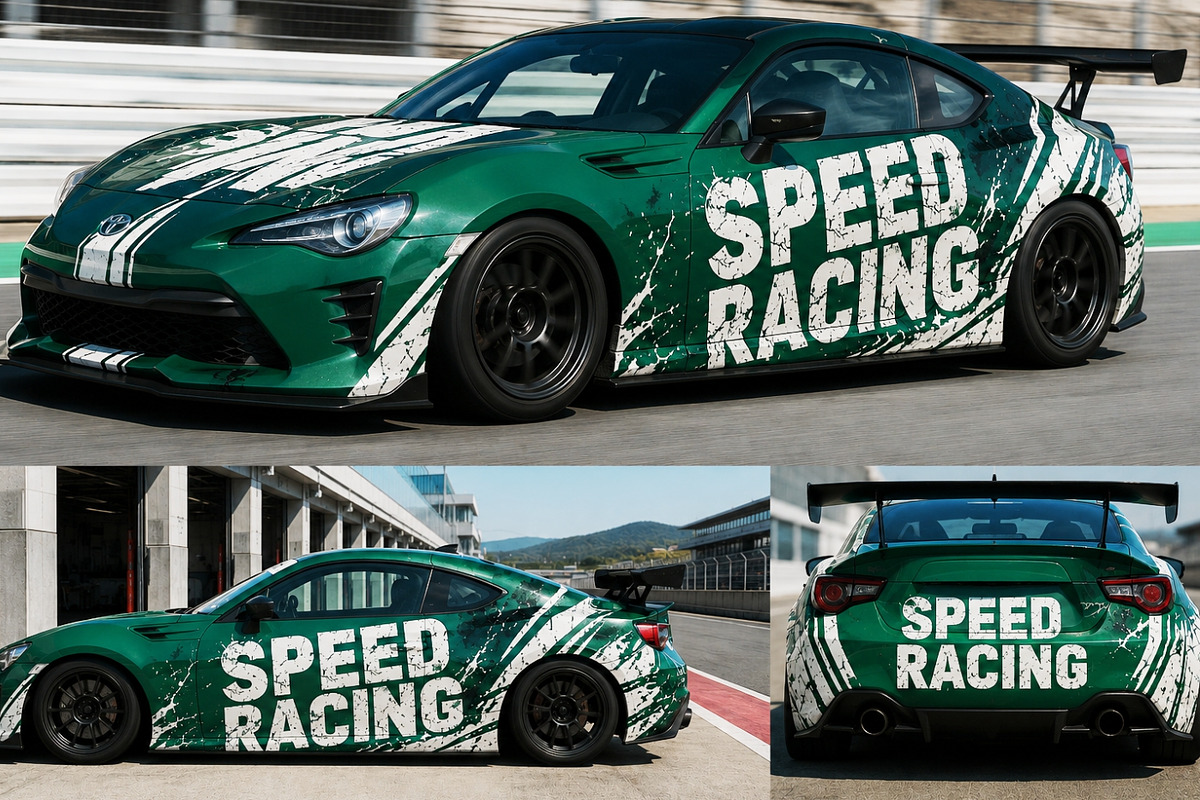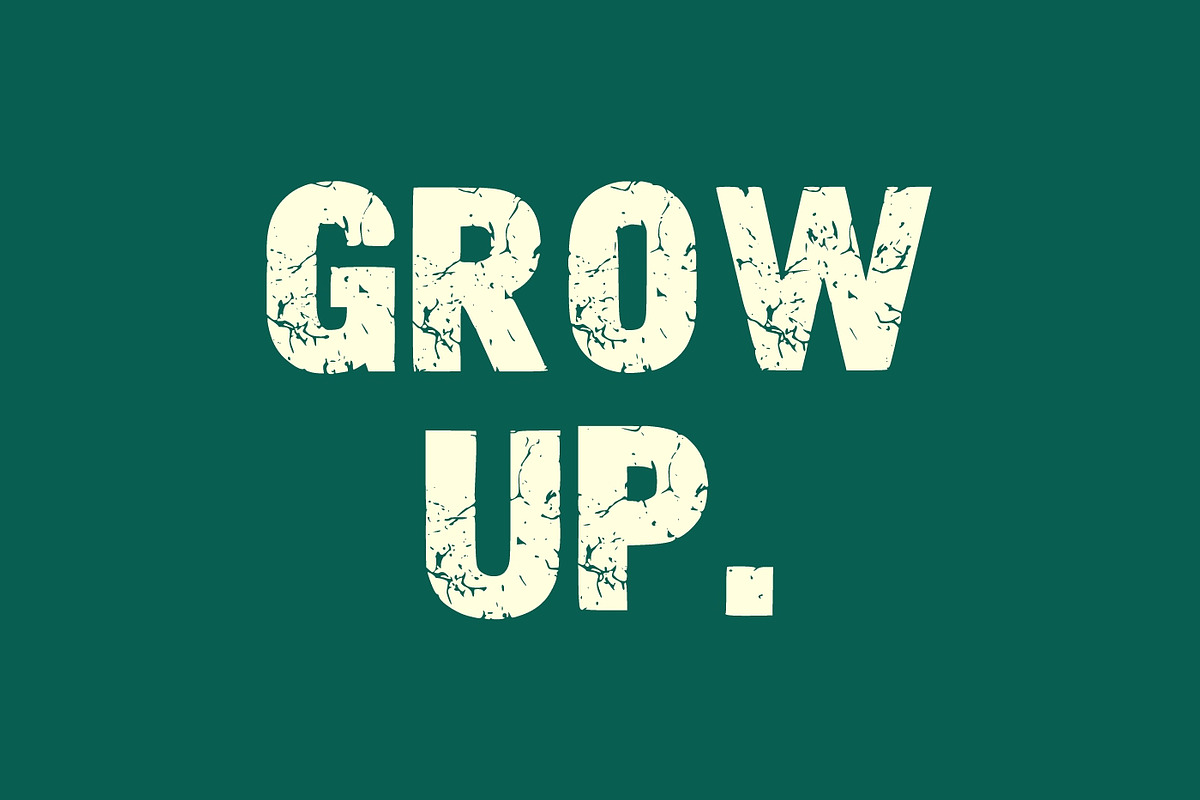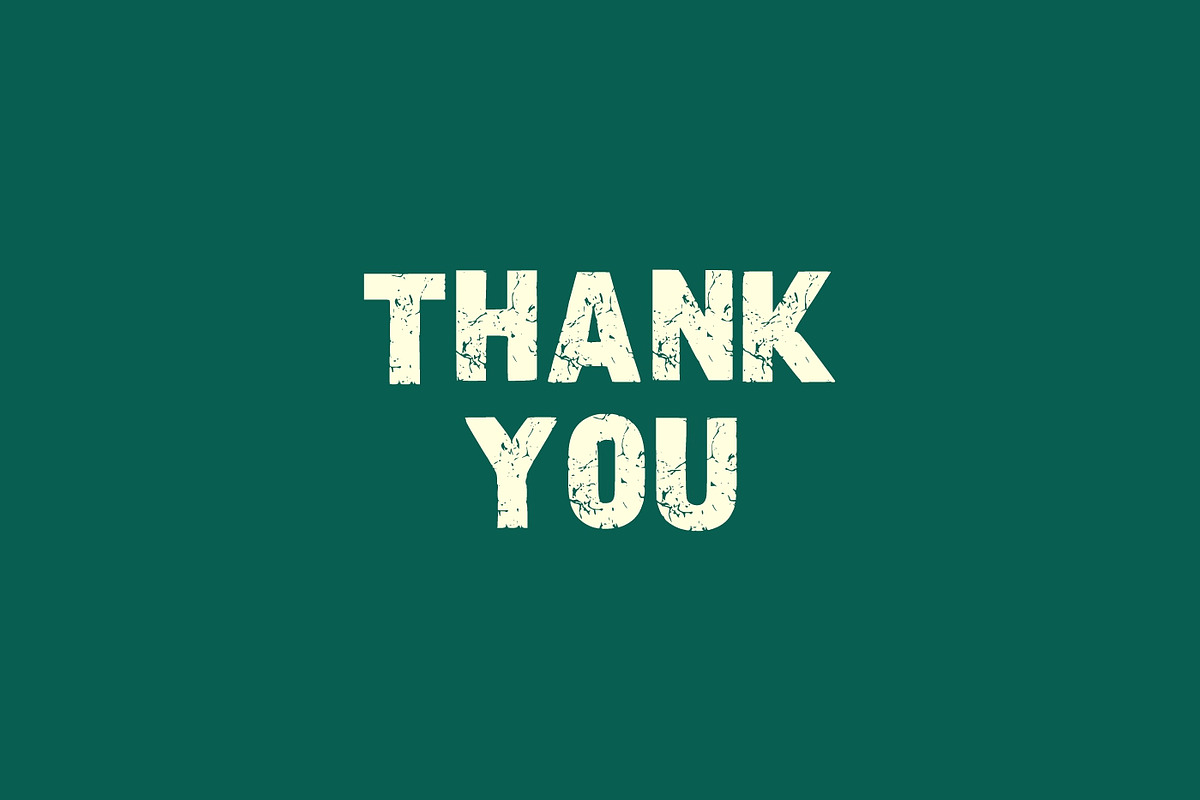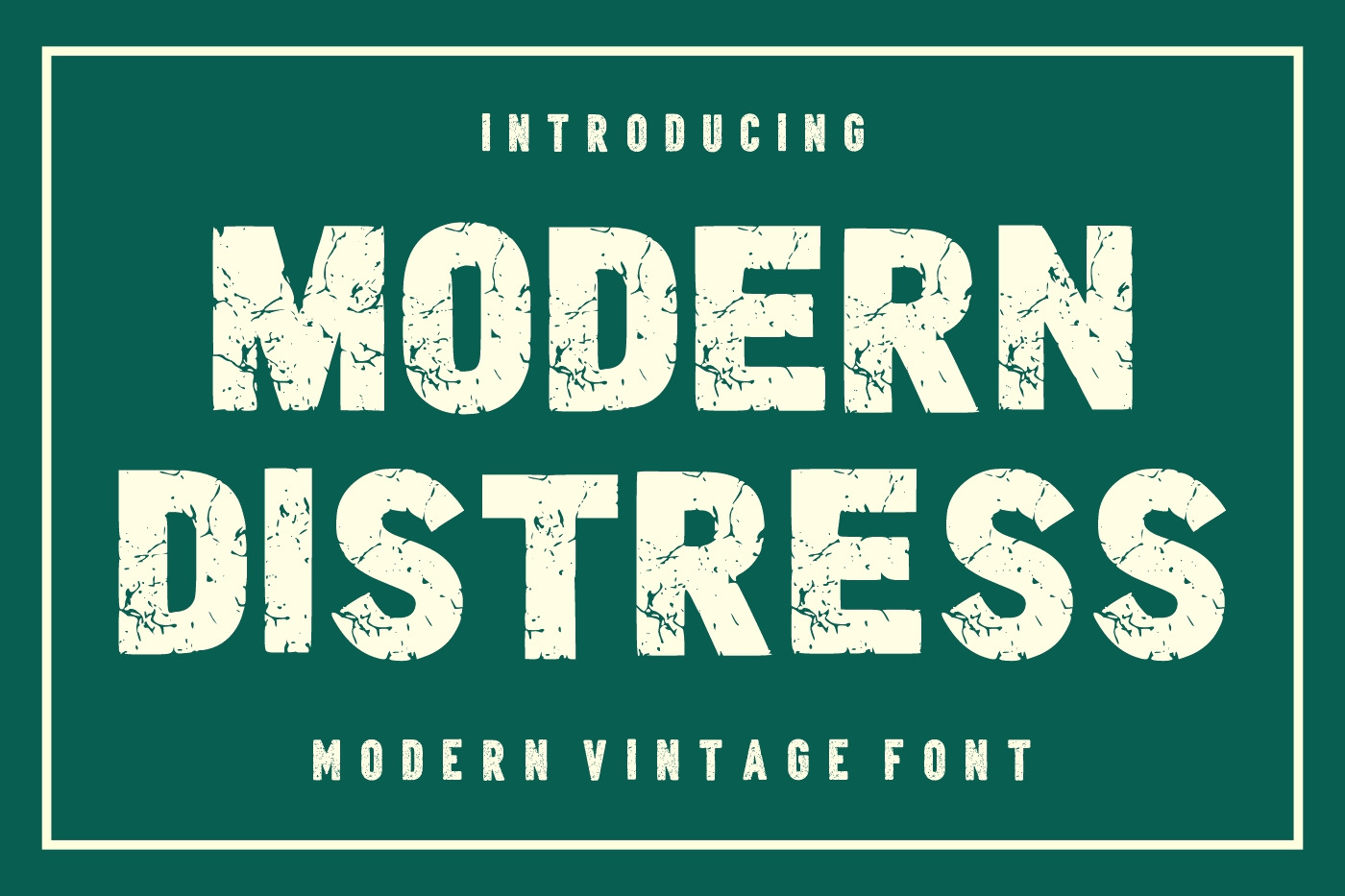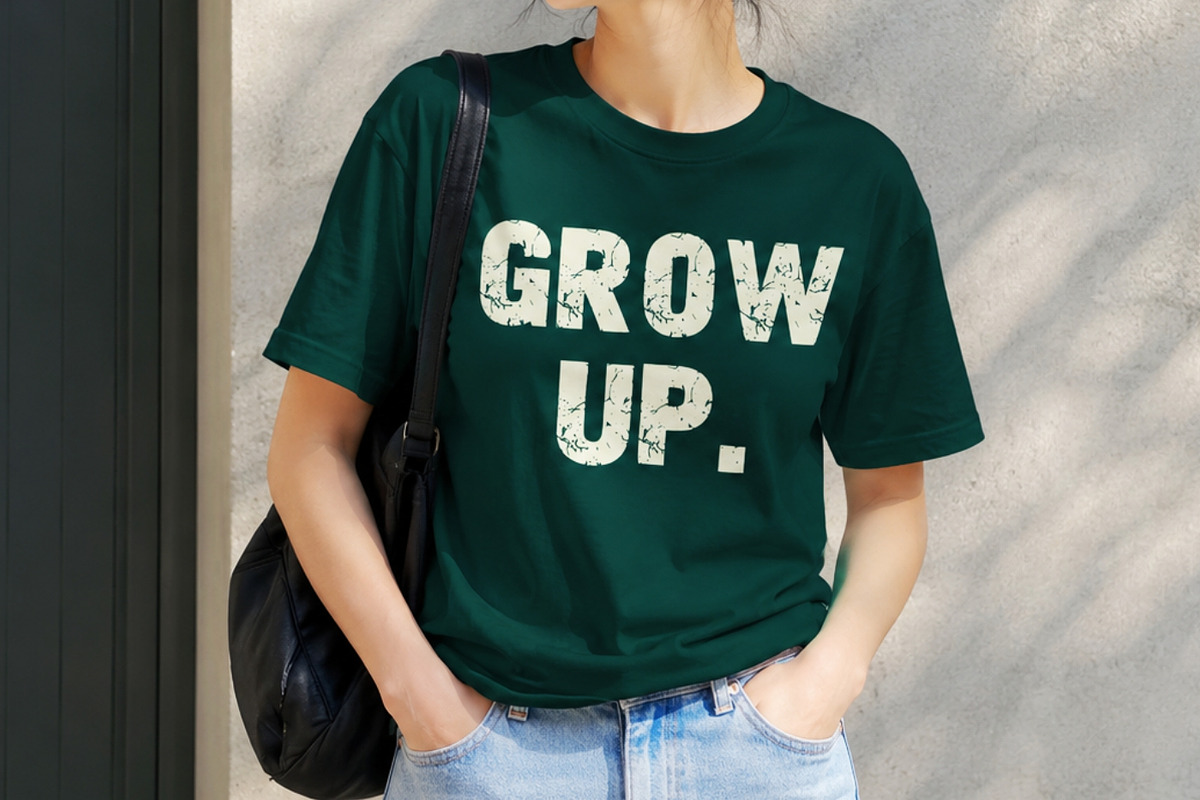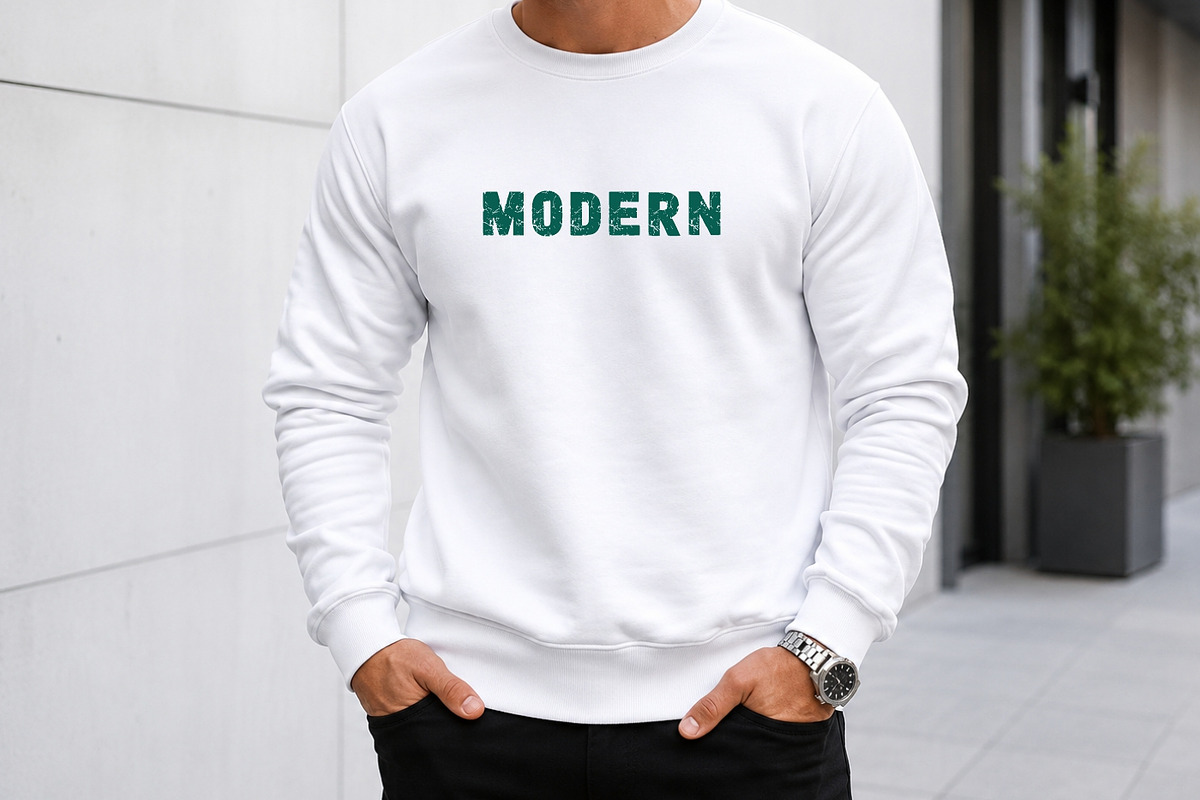
Modern Distress Vintage Font
Modern Distress is a bold and rugged vintage display font designed to bring authentic character and timeless appeal to your creative projects. Featuring a distressed texture with cracked and weathered details, this font captures the essence of classic industrial signage, retro posters, old print materials, and handcrafted branding.
Its strong letterforms make it highly readable while maintaining a raw, aged appearance that instantly adds personality and visual impact. Perfect for designers looking to create eye-catching headlines, logos, labels, packaging, merchandise, sports branding, outdoor-themed designs, vintage advertisements, and rustic-inspired projects.
Whether you’re designing for apparel, posters, social media graphics, badges, product packaging, or branding campaigns, Modern Distress delivers a bold statement with a nostalgic touch. The combination of modern structure and distressed texture creates a versatile font that works beautifully across both contemporary and retro design styles.
– Uppercase Characters – Numbers & Punctuation – Distressed Vintage Texture – Strong Display Letterforms – Easy to Read – Perfect for Print & Digital Projects – Ideal for Branding, Posters, Apparel, and Packaging